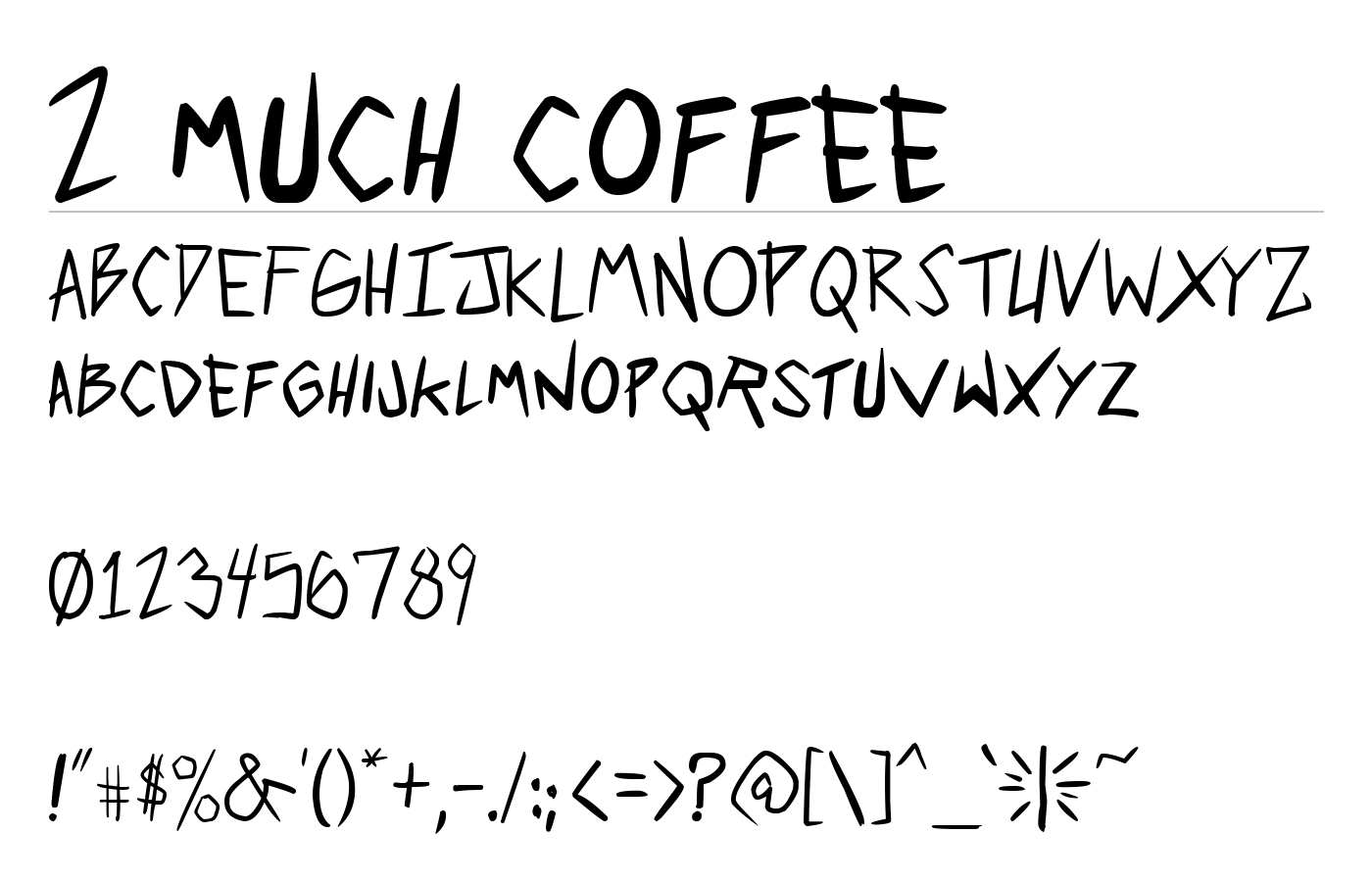
2 Much Coffee is a playful, hand-drawn sans serif font with a casual and energetic vibe. Its uneven strokes and quirky letterforms give it a lively, informal feel, making it perfect for creative projects, fun branding, and youthful designs that want to convey personality and spontaneity. This font works well for headlines, posters, and packaging where a distinctive, handwritten touch is desired.
2 much coffee Font